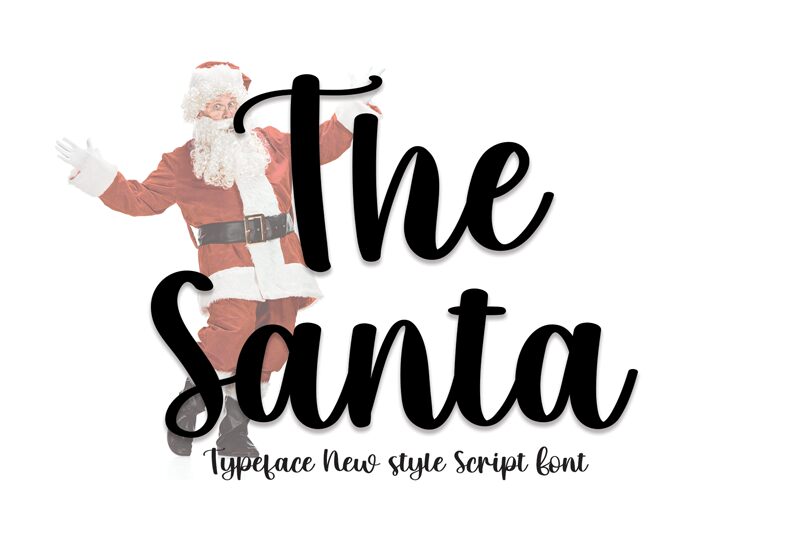
The Santa
The Santa font by Scratchones is a cursive, playful, and elegant script font. The minimalist display of each letter which combines slanted strokes and moderately contrasted lines is rich with subtle elements that make it unique. Elegant yet simple, the entire alphabet holds a harmonious flow with beautifully rounded edges. The typeface has a friendly mood to it that reflects warmth in its beam. Get this free font as a regular or web font.
Perfect for branding your business project or for use on your website, this lovely handwritten assortment works best for weddings and all other formal designs. Try it in invitations, cards, event stationery printables packaging design of sweets products from cakes to chocolates as well as logos monograms posters social media posts and more!